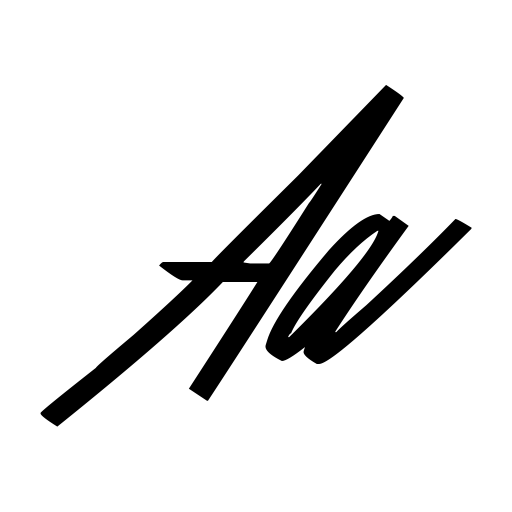
Befitting Demo is an energetic and elegant script font that captures the fluidity of natural handwriting with its flowing, connected strokes and slightly condensed letterforms. Its dynamic, sharp lines and moderate contrast give it a modern yet personal feel, making it ideal for invitations, branding, and creative headlines where a stylish, sophisticated touch is desired. This font works well to convey personality and flair, adding a handcrafted charm to fashion, lifestyle, and artistic projects.
Befitting Demo Font
About Befitting Demo Font